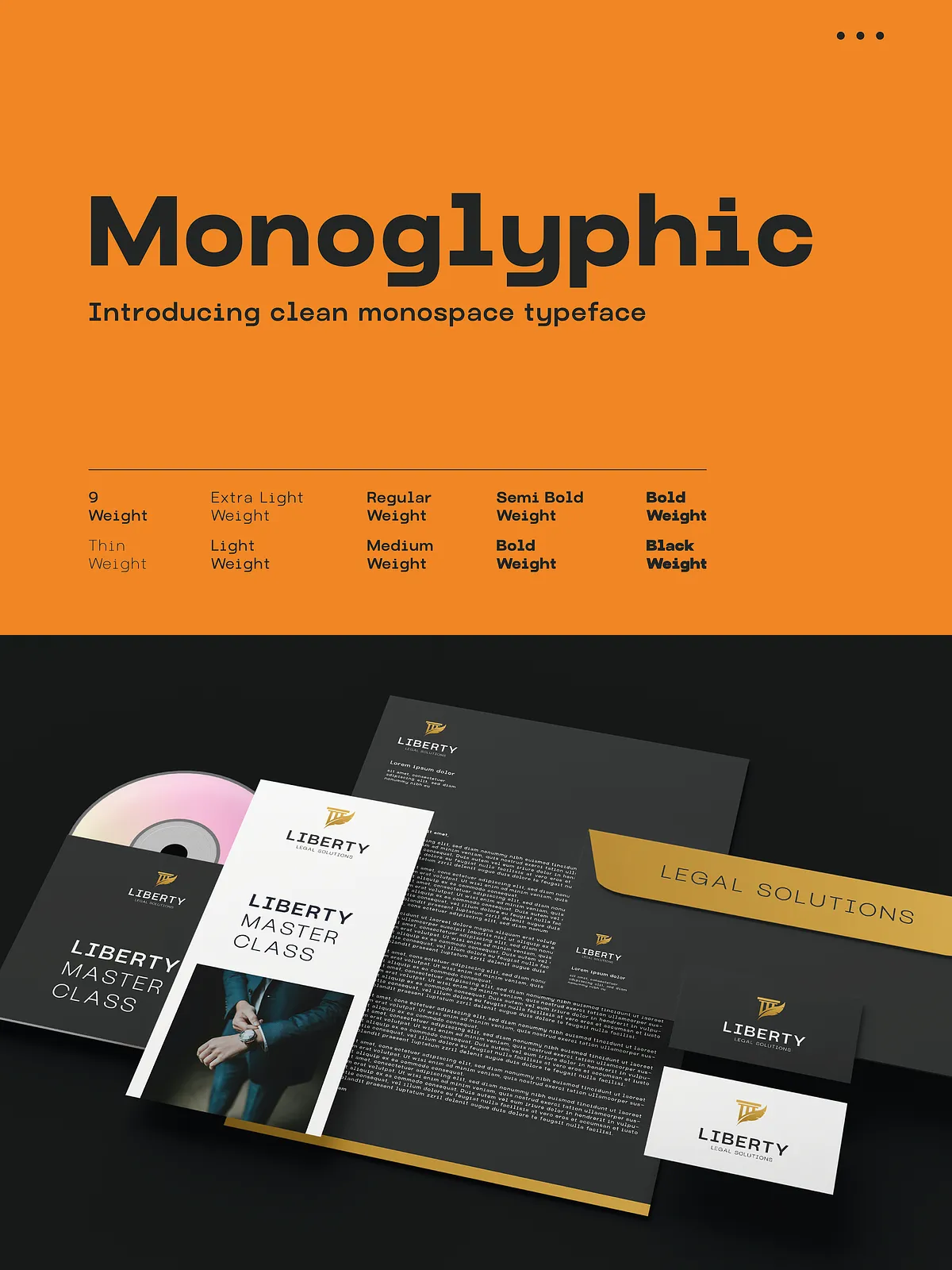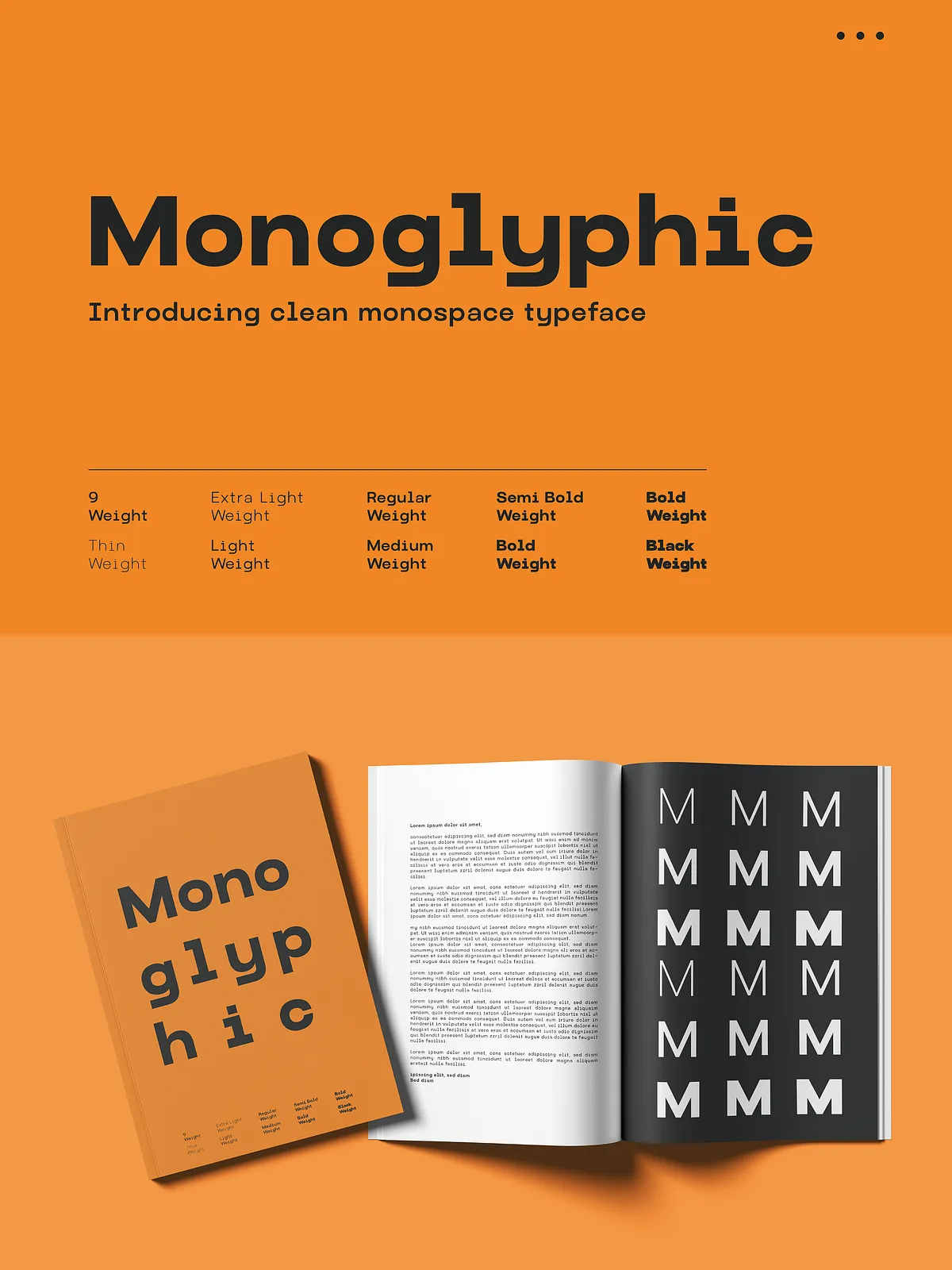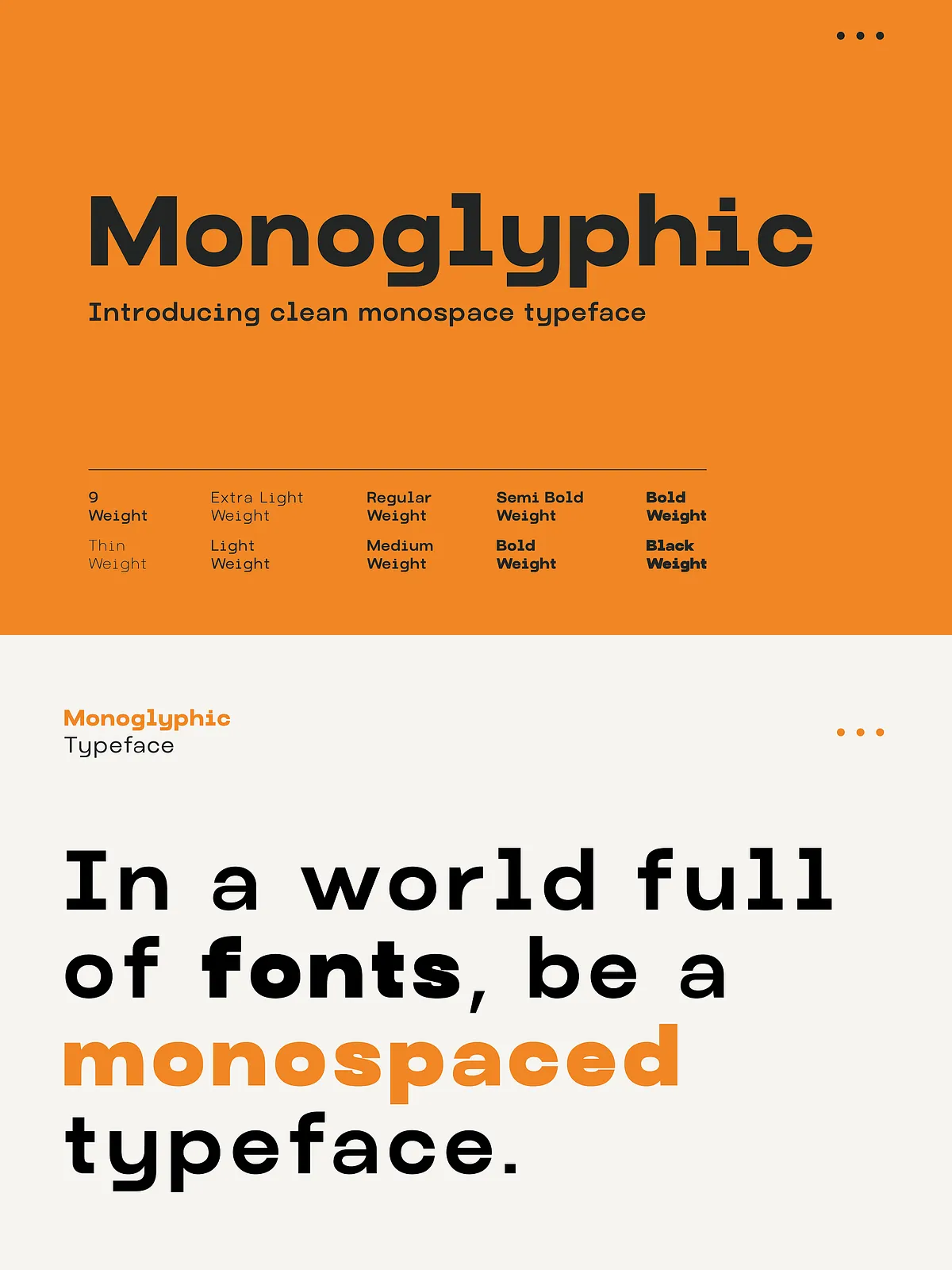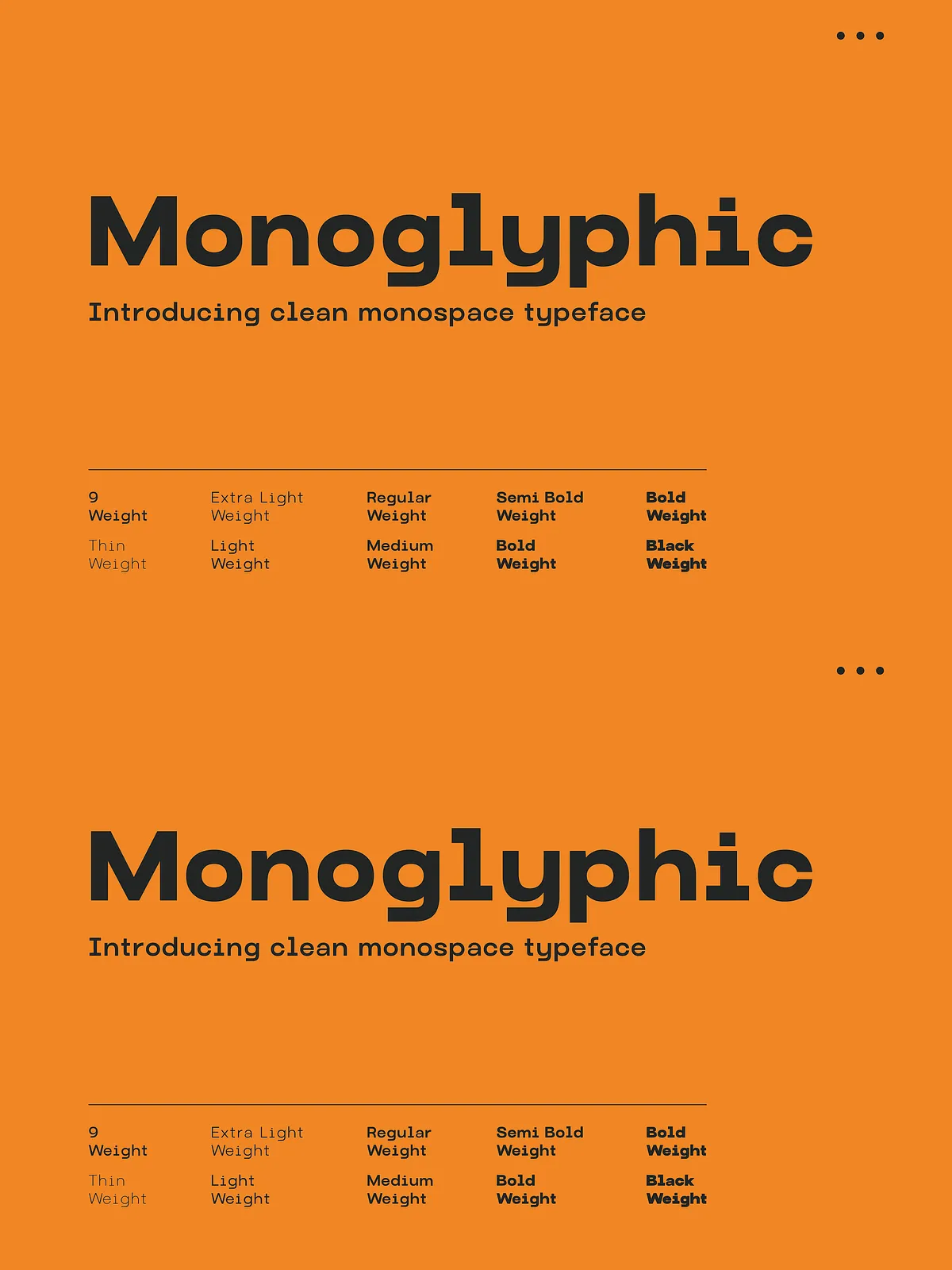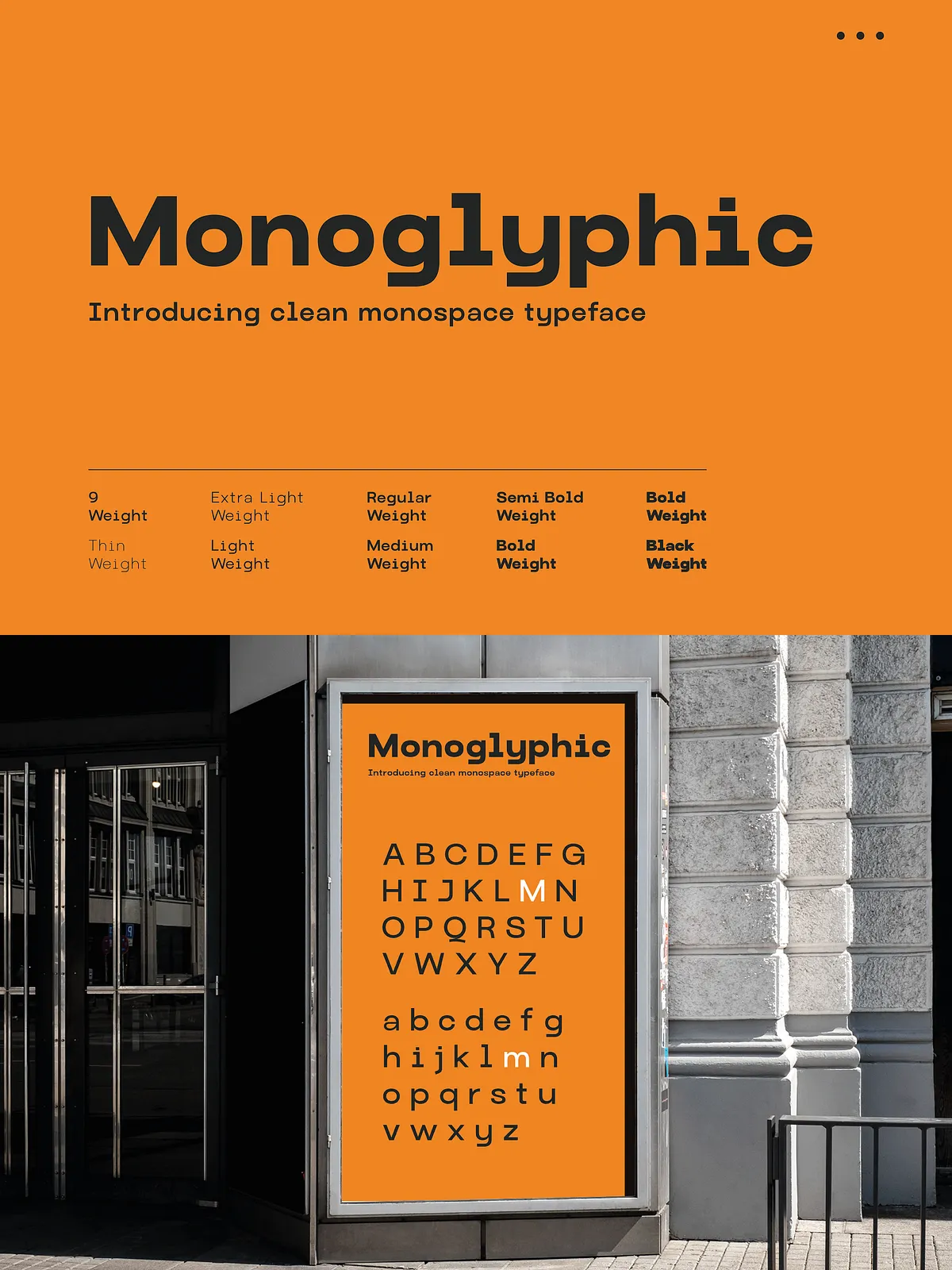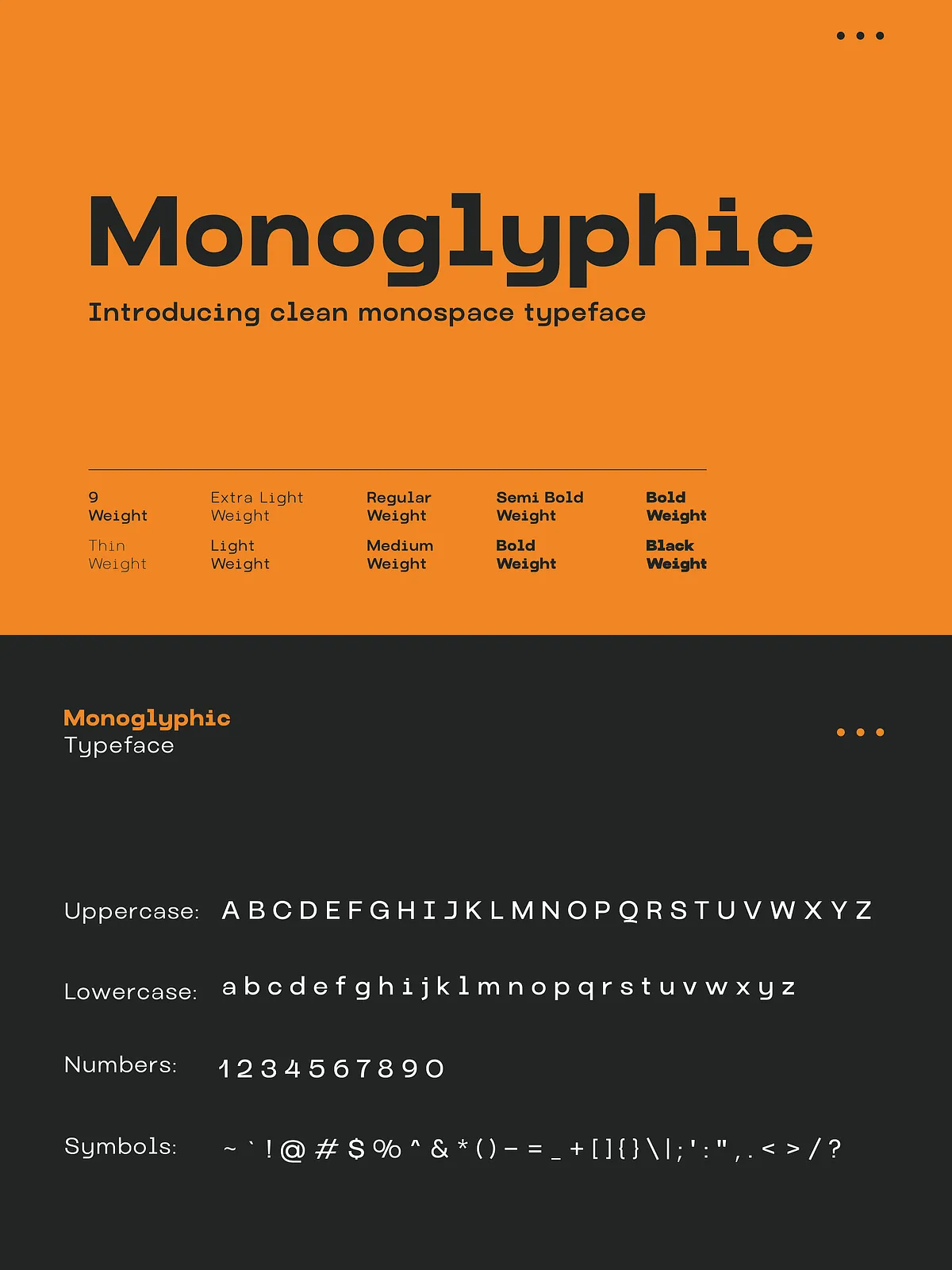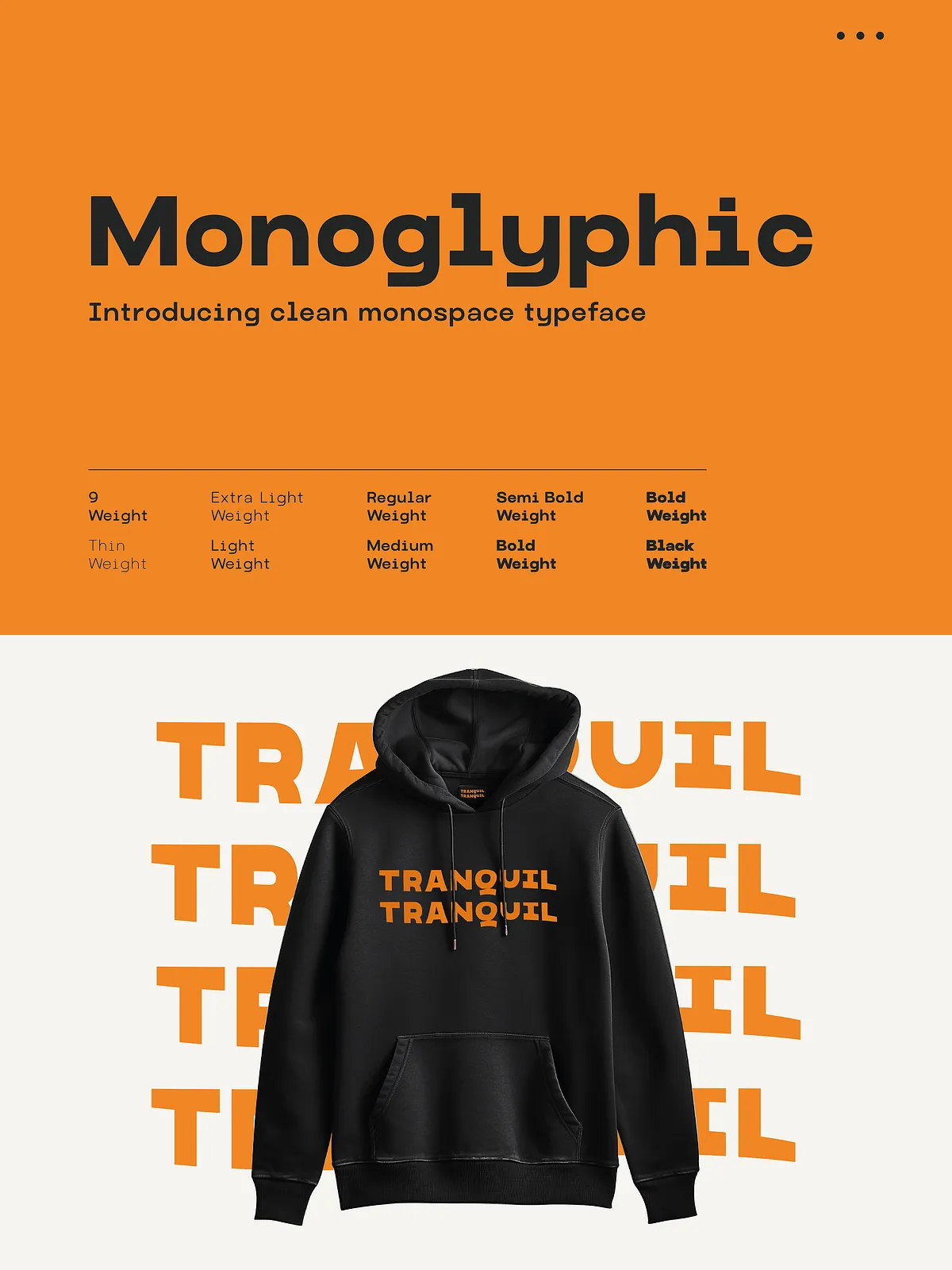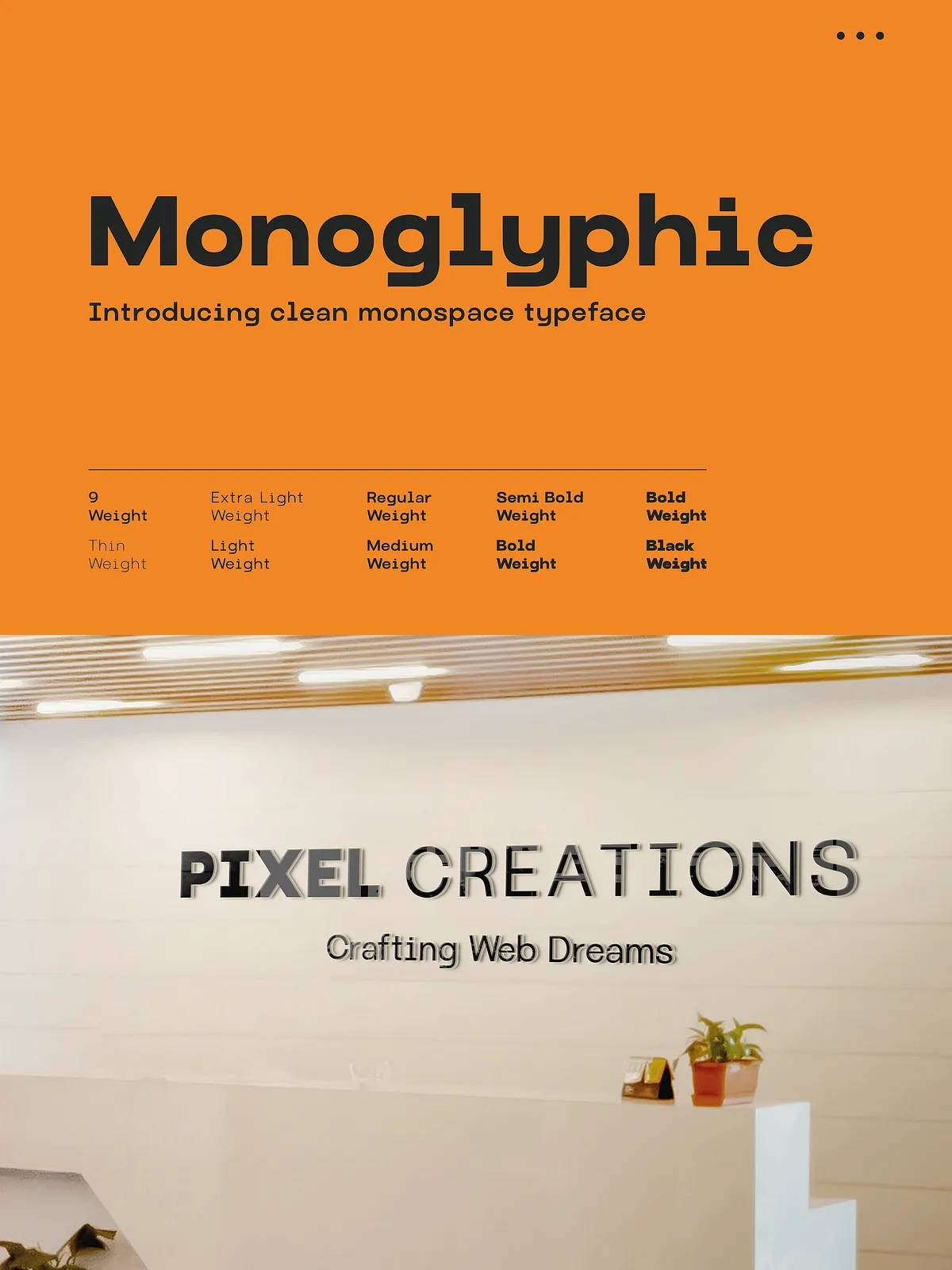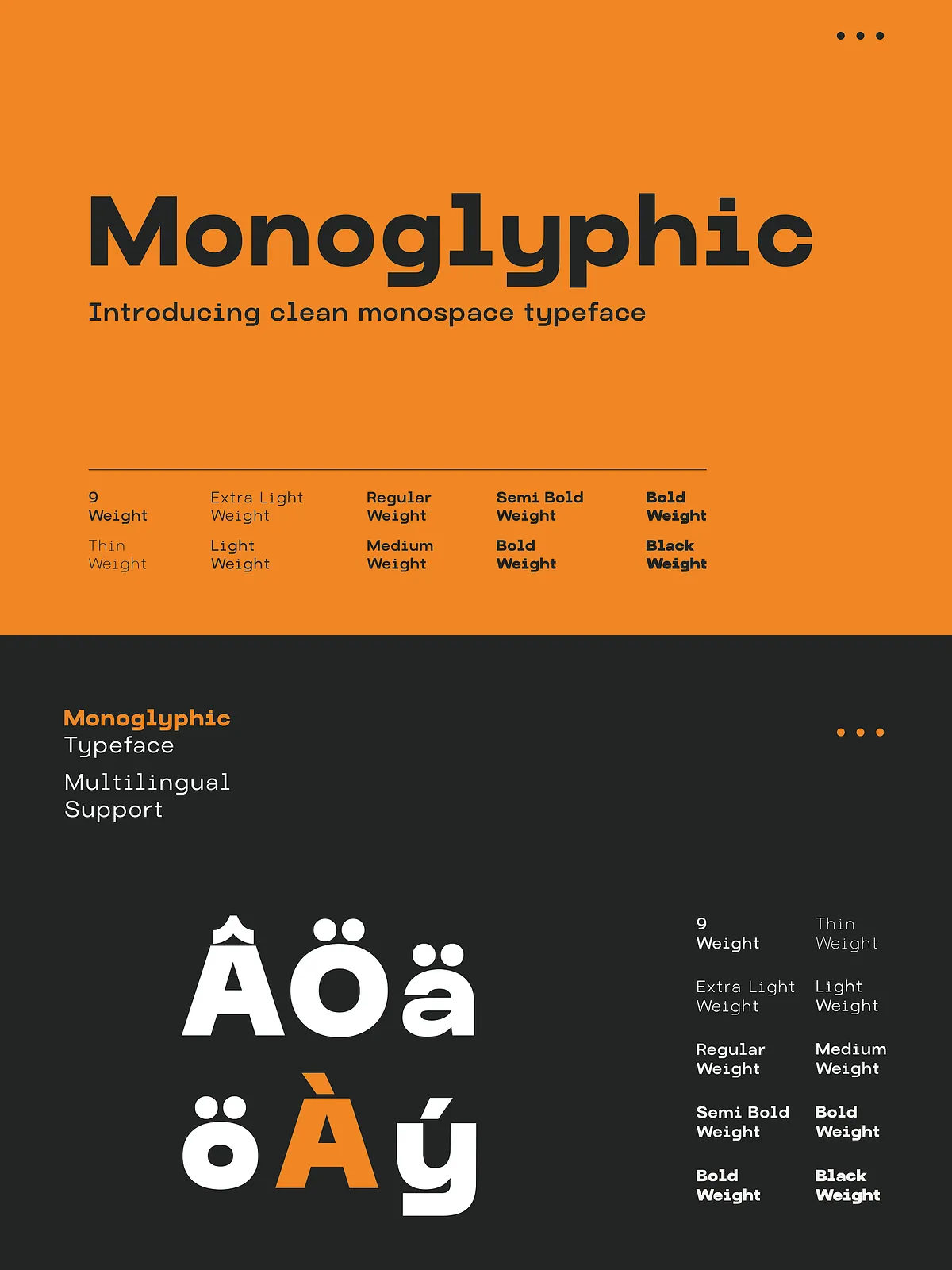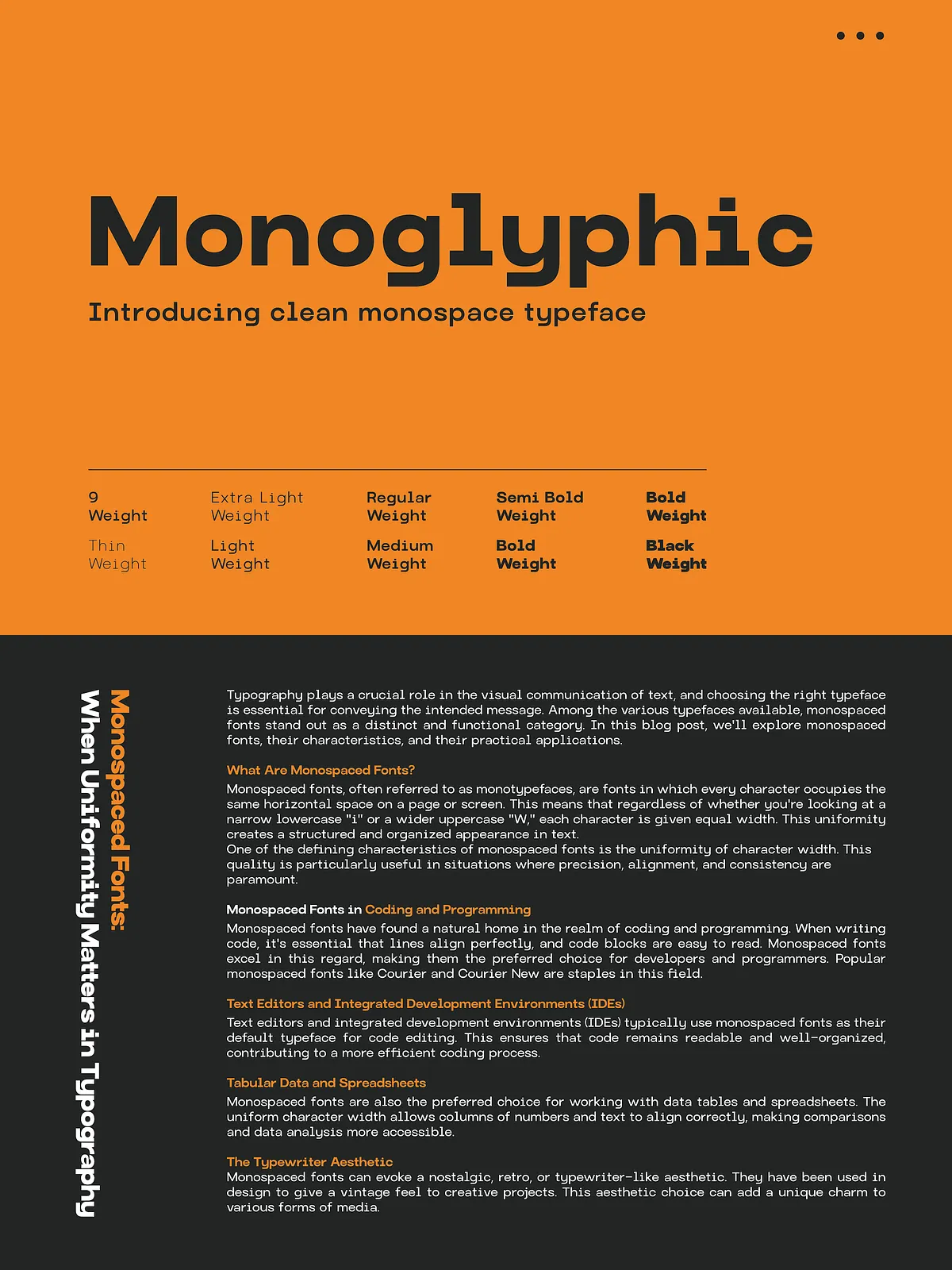
Introducing Monoglyphic — the ultimate monospace typeface designed for clarity, consistency, and modern elegance. In a digital world overflowing with visual noise, Monoglyphic cuts through the clutter with surgical precision. Crafted for designers, developers, and creatives who demand both function and form, this font delivers unmatched readability and visual harmony across every platform and project.
Every glyph is meticulously aligned, ensuring uniform spacing, balanced stroke weight, and sharp geometric integrity. Whether you’re writing code, drafting technical documentation, or creating digital art, Monoglyphic provides the clean structure and silent authority that modern design demands.
Why Monoglyphic Is a Game-Changer for Modern Design
Monoglyphic isn’t just another monospace font. It’s a purpose-built tool engineered to elevate your workflow, strengthen your visual identity, and streamline your creative process.
• Built for Clarity, Designed for Impact
- Ultra-Readable Characters — High legibility at small sizes, ideal for code editors, UI text, and technical content.
- Perfect Glyph Alignment — Consistent character width and vertical rhythm make your text appear seamless and intentional.
- Optimal Kerning & Spacing — Advanced typography algorithms ensure clean, professional-looking text in any context.
• Versatility at Its Finest
Monoglyphic adapts seamlessly across a vast range of creative domains. It doesn’t just fit — it excels.
- For Developers — Use in IDEs, terminal interfaces, and code documentation to reduce eye strain and boost productivity.
- For Designers — Ideal for layout grids, typography systems, and minimalist branding where precision matters.
- For Creative Writers & Art Directors — Employ in digital storytelling, manifesto design, and concept art for a high-tech, futuristic feel.
- For Web & App Designers — Responsive and scalable — perfect for web headers, labels, and interface elements.
Full Feature Set for Professional Use
Monoglyphic is built to meet the demands of real-world design and development projects — no compromises, no hidden limitations.
• Complete Typographic Family
- Multiple Weights: Light, Regular, Medium, Semi-Bold, and Bold — each meticulously tuned for visual hierarchy and contrast.
- Extensive Character Support: Includes Latin, Greek, and Cyrillic characters, plus numerals, punctuation, and symbols — enabling multilingual use.
- Advanced OpenType Features: Supports ligatures, alternates, swashes (optional), and stylistic sets for greater creative control.
- PUA Encoded Glyphs — Access special symbols and design variants without complex keyboard shortcuts or additional software.
Where Monoglyphic Makes the Strongest Statement
This font thrives in environments where precision defines success. Here’s how you can use it to transform your projects:
• Coding & Development
Use Monoglyphic in your IDEs and terminal apps to enhance code readability. The uniform spacing minimizes visual fatigue during long coding sessions, while its clean appearance makes complex code blocks easier to parse at a glance.
• Technical Documentation & UI Text
Design user manuals, API references, dashboards, and software onboarding flows with a font that conveys trust and clarity. Monoglyphic ensures your audience understands every detail without distraction.
• Brand Identity & Visual Systems
Build a modern, tech-forward brand with Monoglyphic as your core typeface. Its minimalist strength makes it ideal for logos, taglines, and visual storytelling in digital-first branding.
• Digital Art & Visual Experiments
Integrate Monoglyphic into generative art, motion graphics, and interactive installations. Its geometric precision adds structure and depth to abstract compositions.
Elevate Your Workflow with a Font That Works for You
Monoglyphic isn’t designed to stand out — it’s designed to make everything else stand out better. It’s the silent professional behind the scenes, ensuring your work is not just seen, but understood.
Choose clarity. Choose consistency. Choose precision. Choose Monoglyphic — where function meets form, and every character has purpose.